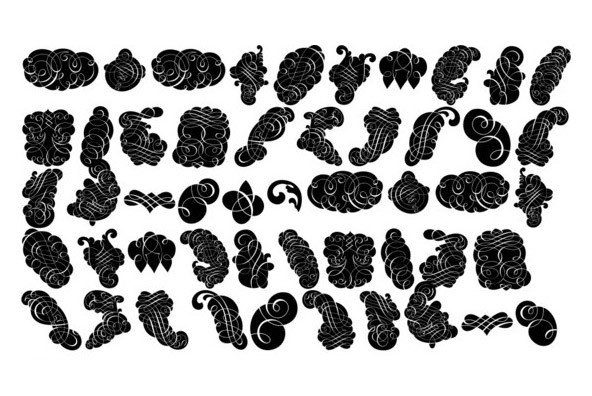
Schwandner Black Fleurons
Designed by Intellecta Design, Schwandner Black Fleurons is a collection of highly intricate, decorative ornaments and fleurons in font format, inspired by the work of Johann Georg Schwandner (1716-1791).